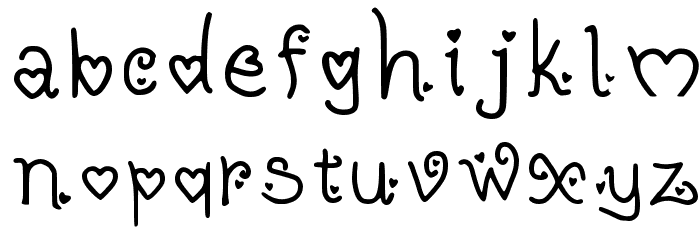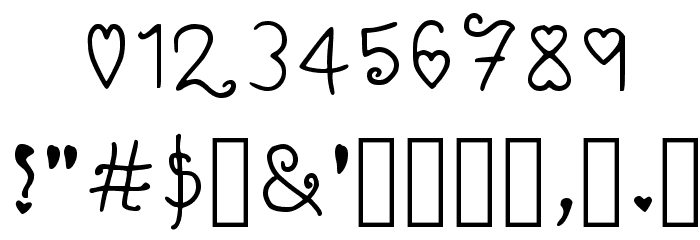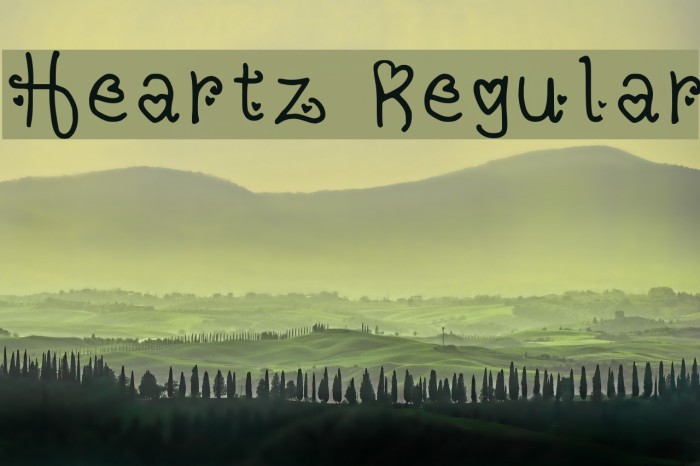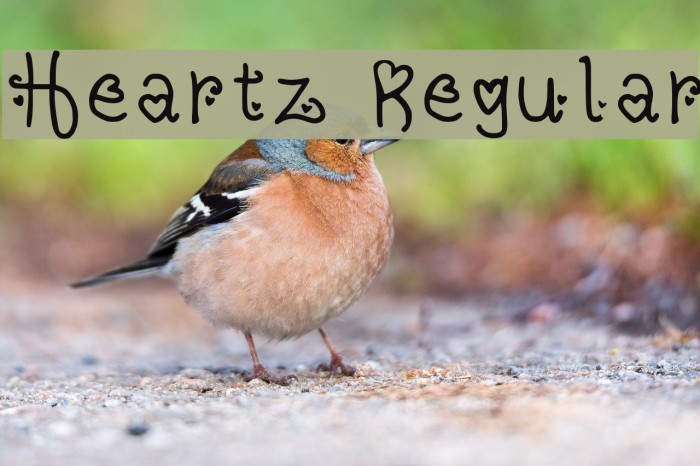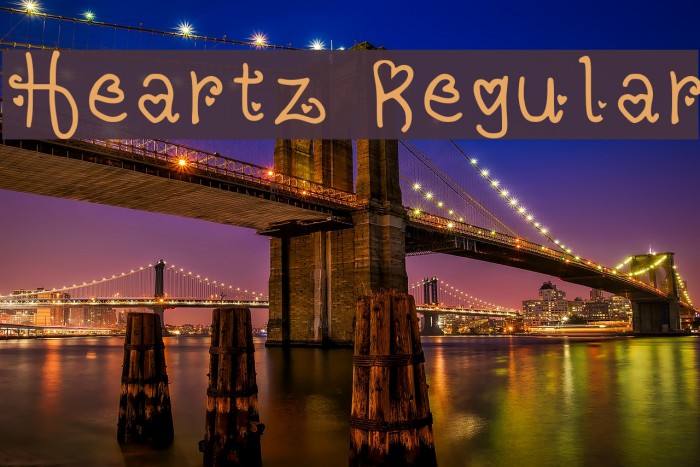
Heartz Regular Font
This playful and decorative font features a whimsical design with heart-shaped elements integrated into the characters. The uppercase and lowercase letters exhibit a consistent theme of love and affection, making it visually appealing for romantic or lighthearted projects. The numbers and special characters continue this theme, with hearts cleverly incorporated into their design. The overall style is unique and eye-catching, suitable for projects that require a touch of charm and creativity.
A whimsical, heart-themed decorative font perfect for romantic projects.
- Proposed Projects: Ideal for wedding invitations, Valentine's Day cards, love-themed posters, and playful branding materials.
- Use Case: Headlines, Logos, Invitations